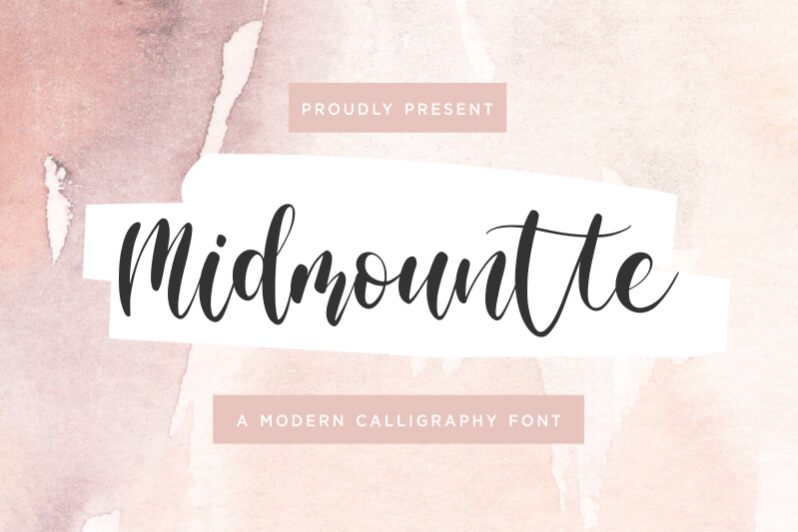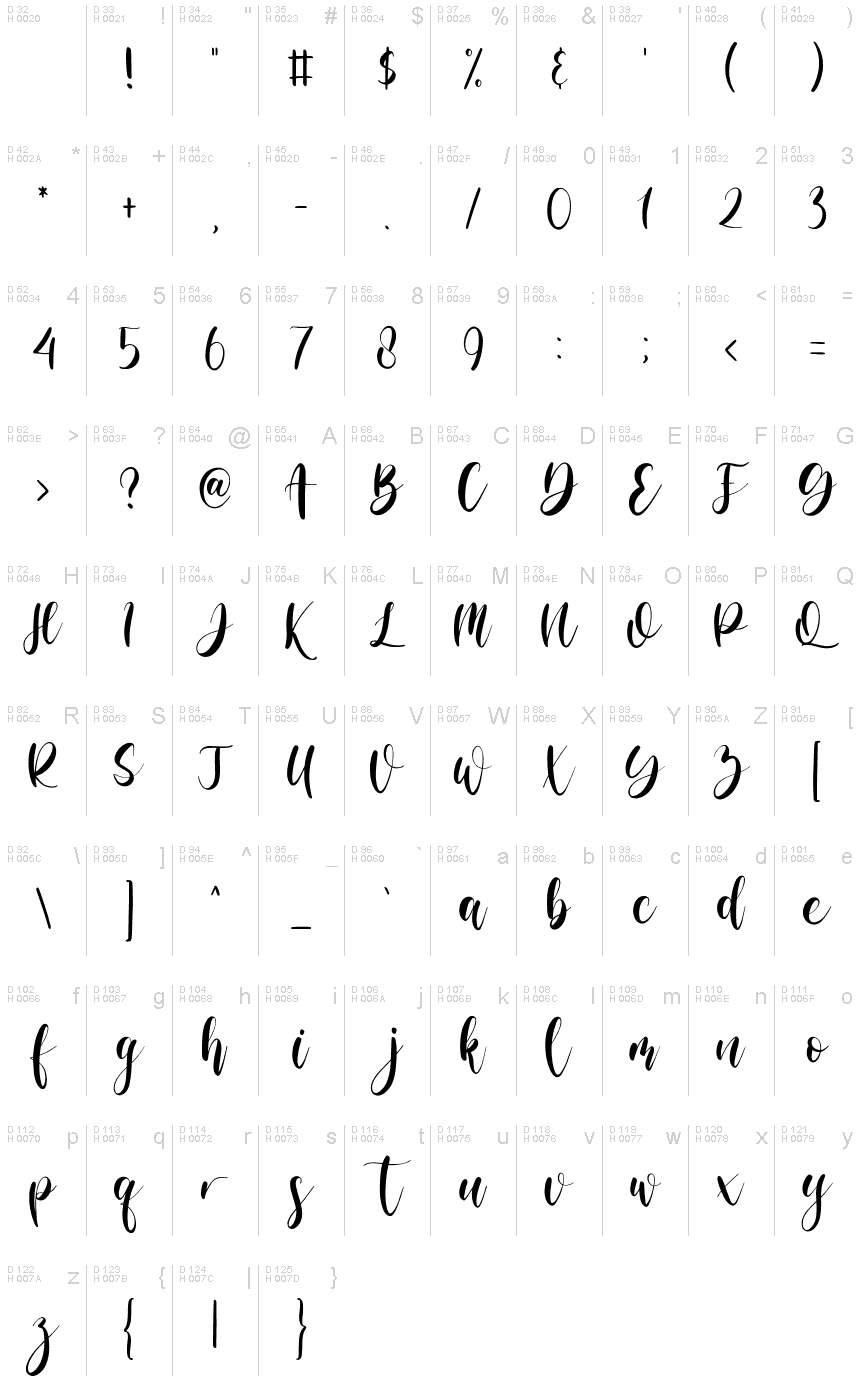
Midmountte
Midmountte is a modern calligraphy font designed by Qwrtype Foundry. Its light weight makes it suitable for a variety of creative projects, from logos to wedding invitation cards. Let your imagination run wild and add a unique touch to your designs with Midmountte!